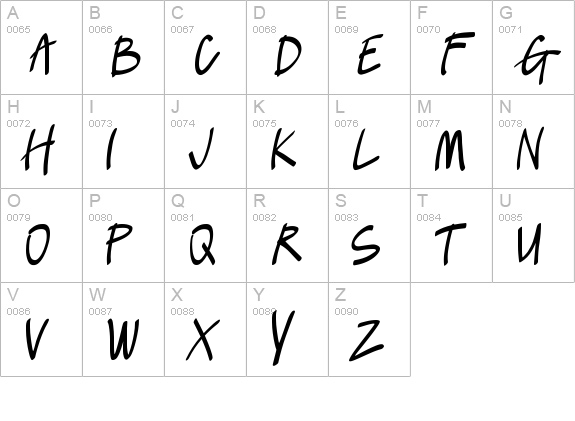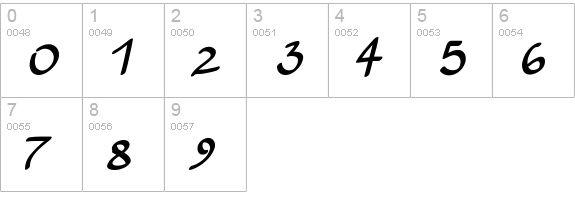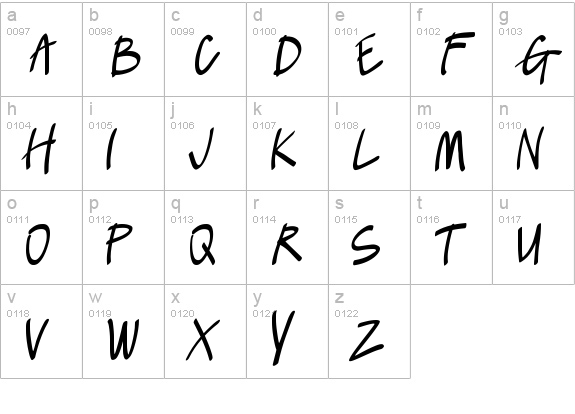
Lush Font Details
Lush font is a stunning display typeface that exudes elegance and sophistication. With its intricate details and graceful curves, Lush font is perfect for adding a touch of luxury to any design project. This versatile font is ideal for branding, invitations, packaging, and more. Best of all, Lush font is available for free download at FontsMarket.com, making it accessible to all designers looking to elevate their creations with a touch of glamour. Don't miss out on this exquisite font that will surely make your designs stand out!